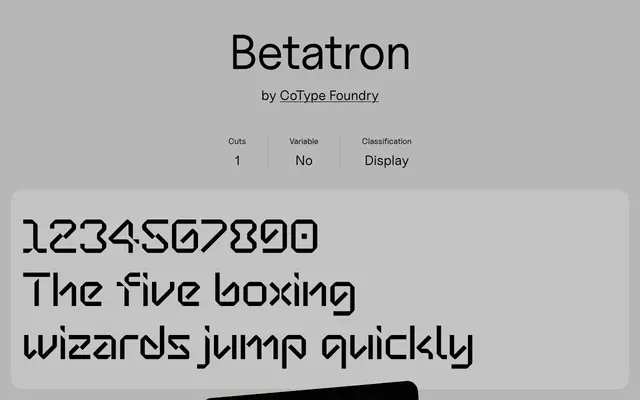
Betatron
A single-cut display typeface by CoType Foundry, available free for commercial use under a Creative Commons Attribution-NoDerivatives licence.
Released through Uncut as a free font, Betatron comes in one cut with no variable axis and no italic. The Attribution-NoDerivatives 4.0 licence permits commercial use provided credit is given, though modifications are not allowed. Suited to headline and display applications where a no-cost option is needed.
Classified as Display by the foundry, indicating a typeface intended for large-scale headline use rather than body text.